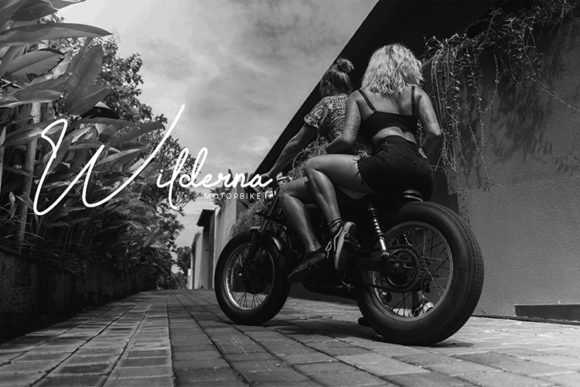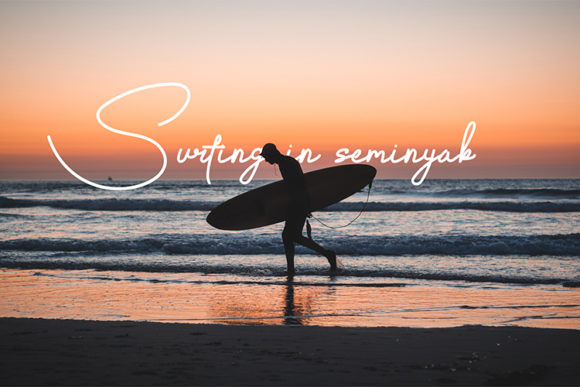
Kally Dreams Font
db-ku.com - Script & Handwritten -- Kally Dreams is a beautiful and friendly handwritten font. Fall in love with its completely different and timeless style and use it to create spectacular designs!